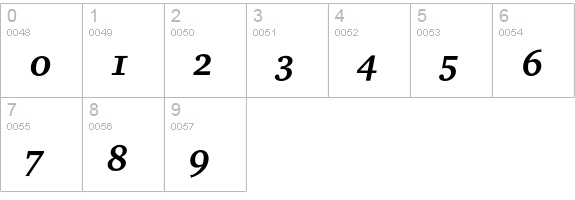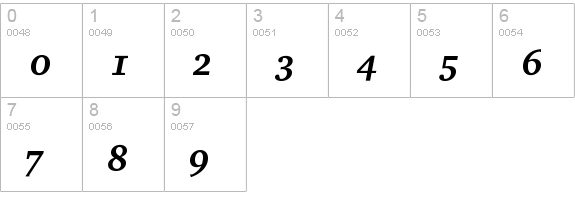
CharterEF-BoldItalicOsF Font Details
CharterEF-BoldItalicOsF is a stunning and versatile font that exudes elegance and sophistication. Its bold and italicized design adds a touch of flair to any project, making it perfect for both headers and body text. The OpenType Small Caps feature enhances the overall aesthetic, providing a polished and professional look. What makes CharterEF-BoldItalicOsF even more appealing is that it is available for free download at FontsMarket.com. This means you can easily access this premium font without any cost, making it a valuable addition to your font collection. Whether you're working on a design project, creating branding materials, or simply looking to elevate your typography game, CharterEF-BoldItalicOsF is the perfect choice. Download it today and unleash your creativity with this exceptional font.